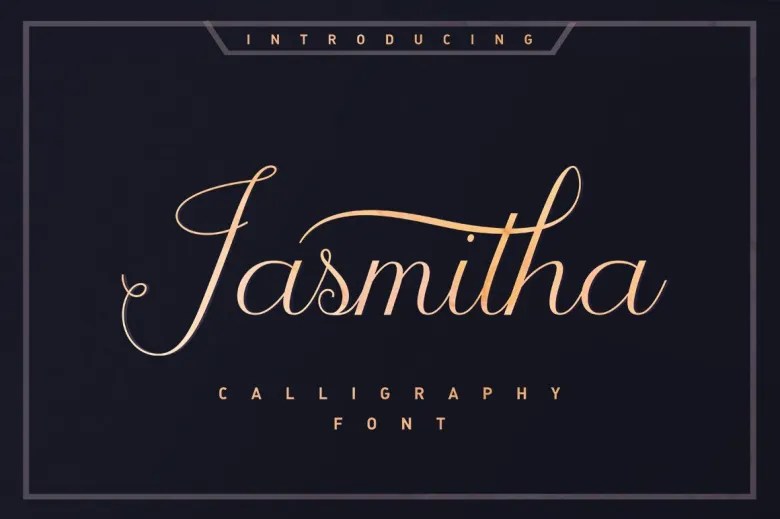
Jasmitha Script Font
Jasmitha Script is a modern and elegant handwritten script font that captures the beauty of natural, hand-drawn letters. Featuring intricate hand scratching designs, this font brings an artistic and personal touch to any project. With its fluid strokes and unique character, Jasmitha Script is ideal for creating designs that stand out with a sense of style and originality.
This font offers a wide range of features, including lowercase letters, punctuation marks, numbers, multilingual support, ligature styles, and alternate characters, giving you plenty of flexibility and creativity for your design work. Whether you’re crafting invitations, branding materials, or social media graphics, Jasmitha Script offers versatility to fit your needs.
The carefully designed letterforms and attention to detail make this script font an excellent choice for adding a personal and artistic feel to various projects, from wedding invitations to promotional materials. Its modern aesthetic ensures that it remains stylish and relevant across different design contexts.
Jasmitha Script Font